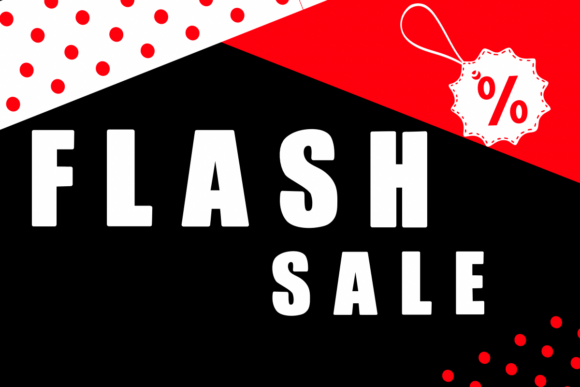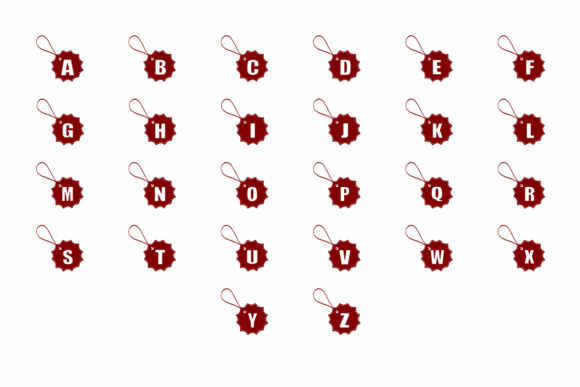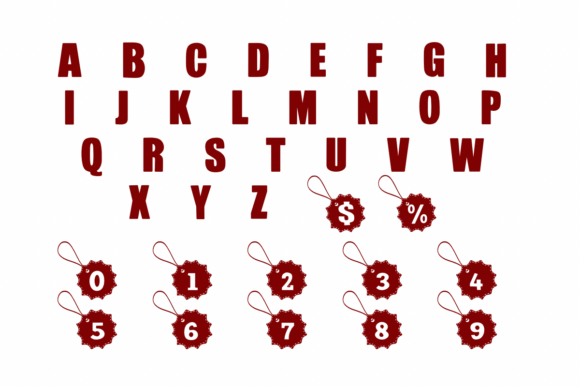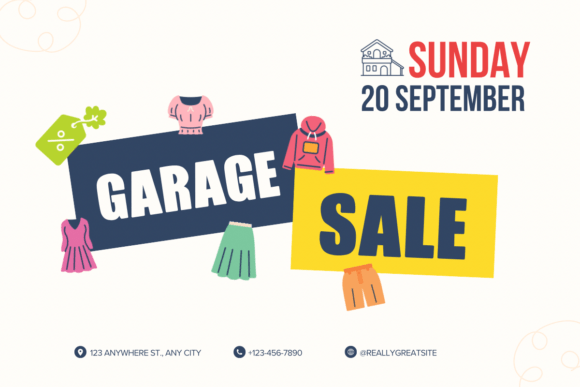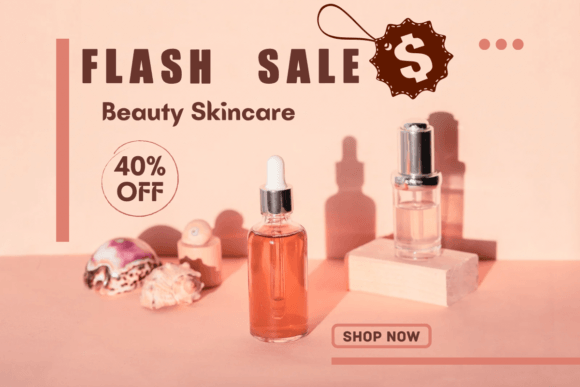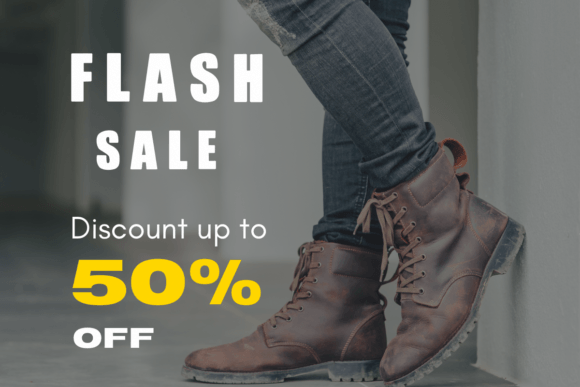
Introducing Flash Sale Font: Elevate Your Designs with a Decorative Twist
Are you on the hunt for a font that adds a touch of personality to your designs? Look no further than Flash Sale Font, a decorative font that’s perfect for crafters, designers, and anyone looking to make their projects stand out. In this article, we’ll dive into the world of Flash Sale Font, exploring its uses, benefits, and the endless creative possibilities it offers.
What is Flash Sale Font?
Flash Sale Font is a unique, decorative font designed to add a flair of excitement to your designs. Its distinctive style makes it an excellent choice for a variety of projects, from personal notes and greeting cards to professional designs and marketing materials.
Uses of Flash Sale Font
One of the best things about Flash Sale Font is its versatility. While it’s perfect for:
- Taking notes – Add a decorative touch to your notes and make studying more enjoyable.
- Writing a diary – Make your journal entries more personal and visually appealing.
- Creating greeting cards – Design beautiful, one-of-a-kind cards for special occasions.
It’s also great for a wide range of other design projects, including:
- Banners – Create eye-catching banners for events, sales, or promotions.
- Content creation – Add a decorative touch to your blog posts, articles, or social media content.
- Mugs – Design personalized mugs for gifts or personal use.
- Cards – Create custom cards for birthdays, holidays, or any special occasion.
- Shirts – Design unique apparel for personal use or as gifts.
- Stationery – Add a touch of elegance to your letterheads, invoices, or notebooks.
- Social media posts – Make your social media content stand out with decorative text.
Benefits of Using Flash Sale Font
So, why choose Flash Sale Font for your designs? Here are just a few benefits:
- Unique style: Flash Sale Font offers a distinctive style that sets it apart from more traditional fonts.
- Versatility: Use it for personal or professional projects, and across various mediums.
- Ease of use: Flash Sale Font is easy to read and works well in both digital and print formats.
- Customization: Experiment with different sizes, colors, and styles to make your designs truly unique.
Tips for Using Flash Sale Font
To get the most out of Flash Sale Font, here are a few tips:
- Mix and match: Combine Flash Sale Font with other fonts for a unique look.
- Play with colors: Experiment with different colors to match your brand or design theme.
- Use it sparingly: Balance Flash Sale Font with more traditional fonts to avoid overwhelming your design.
Flash Sale Font is a versatile, decorative font that’s perfect for designers, crafters, and anyone looking to add a touch of personality to their projects. With its unique style, ease of use, and endless creative possibilities, it’s an excellent addition to any design toolkit. So why not give Flash Sale Font a try and see how it can elevate your designs?
Whether you’re a seasoned designer or just starting out, Flash Sale Font is sure to inspire your creativity and help you create stunning designs that stand out from the crowd.